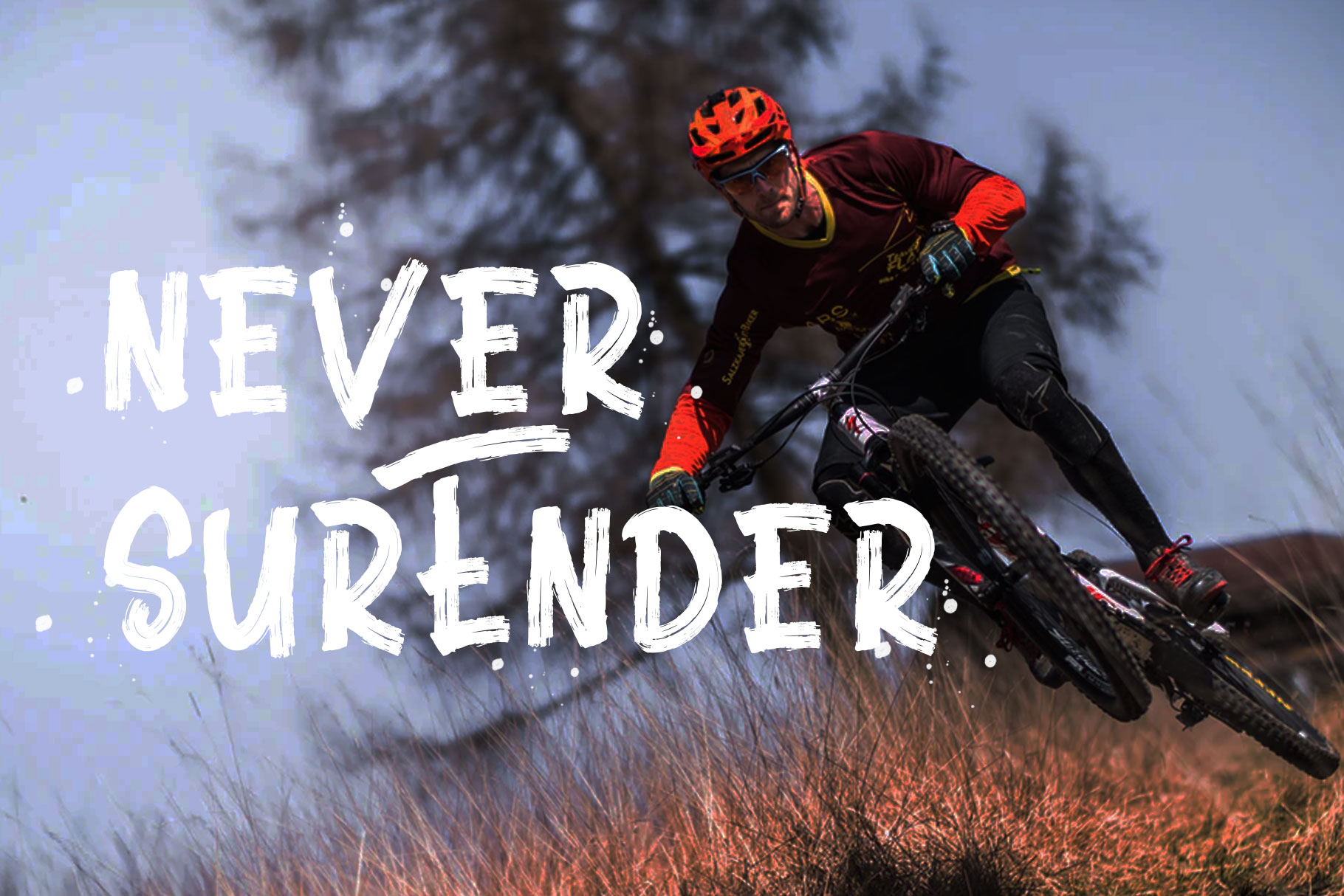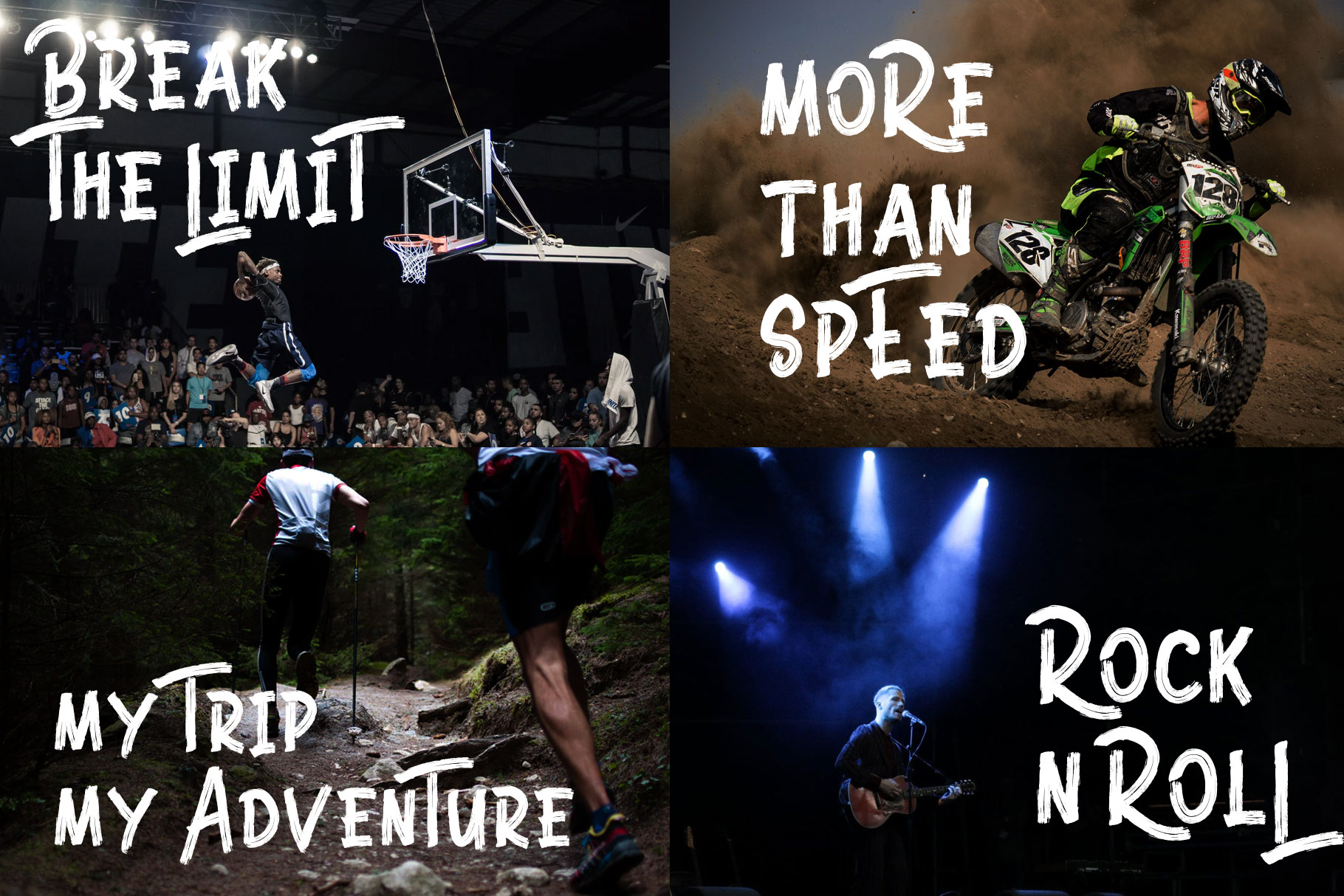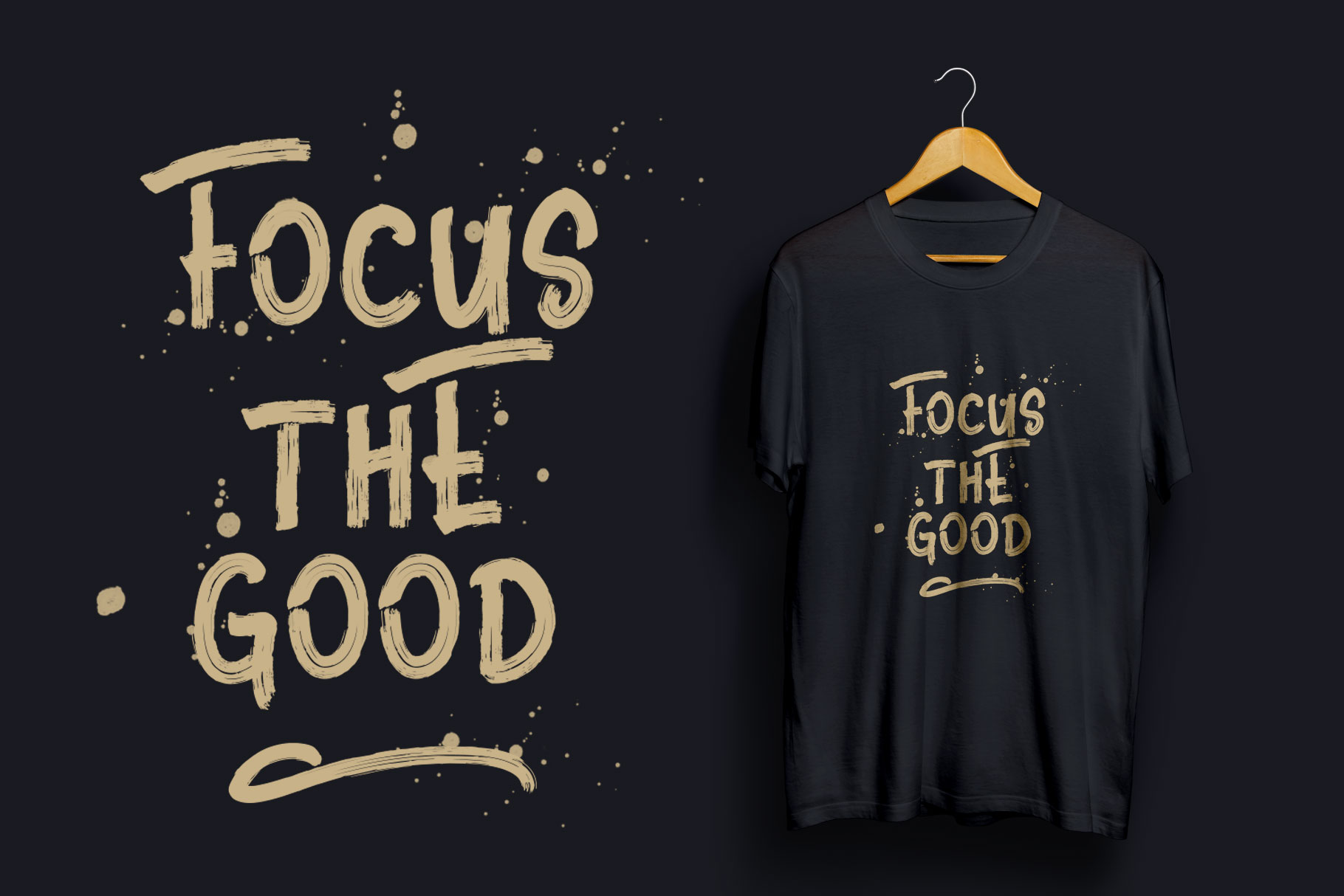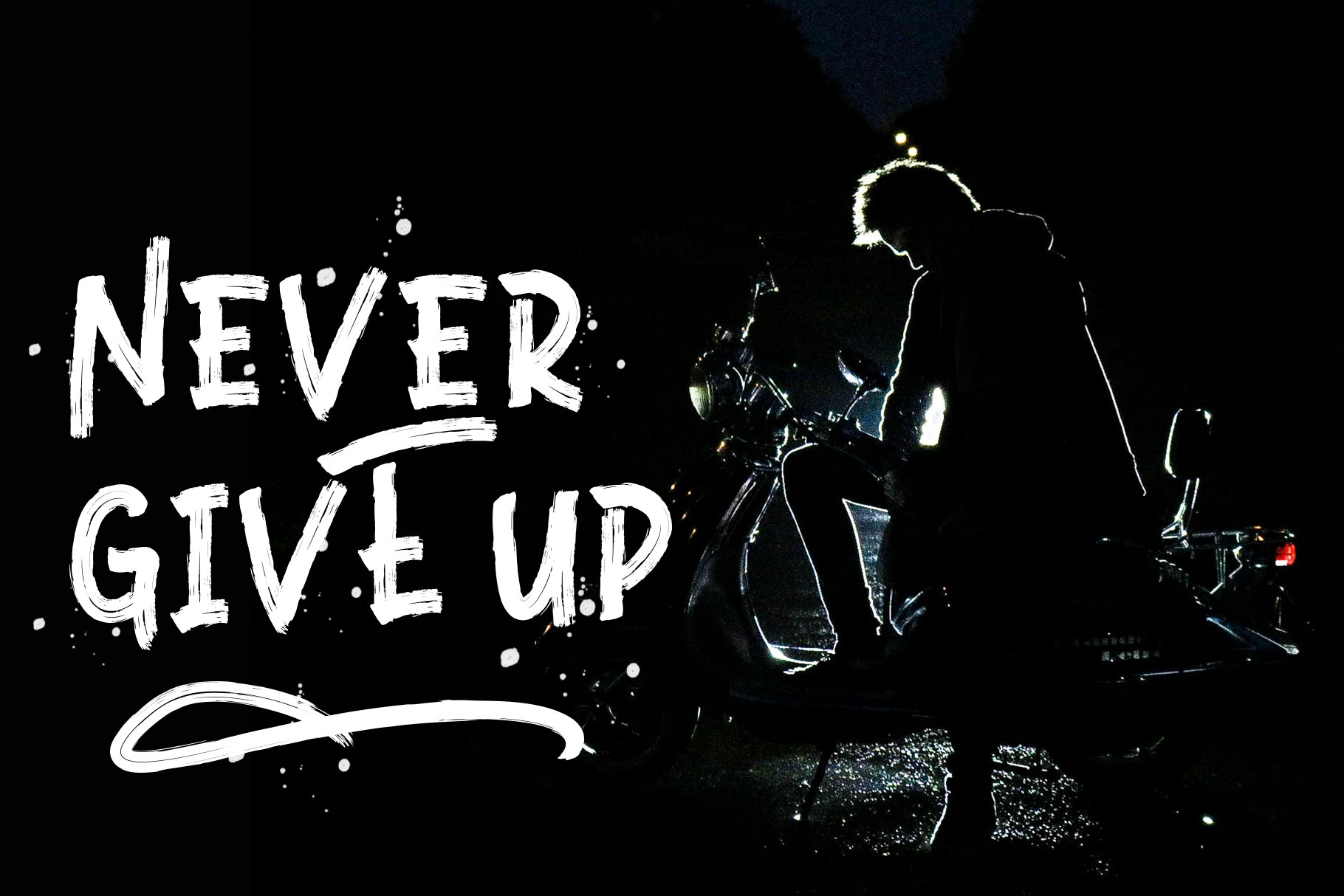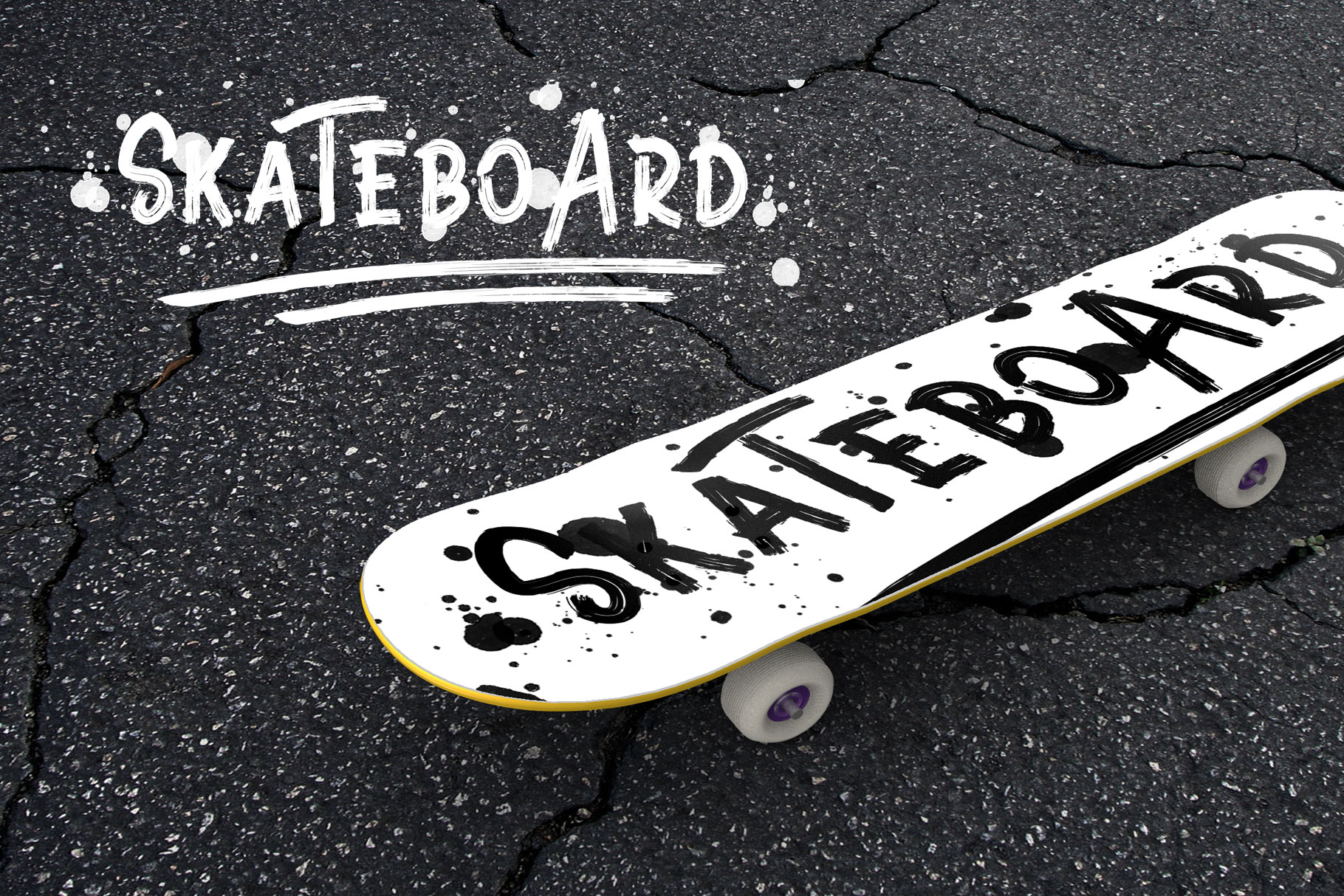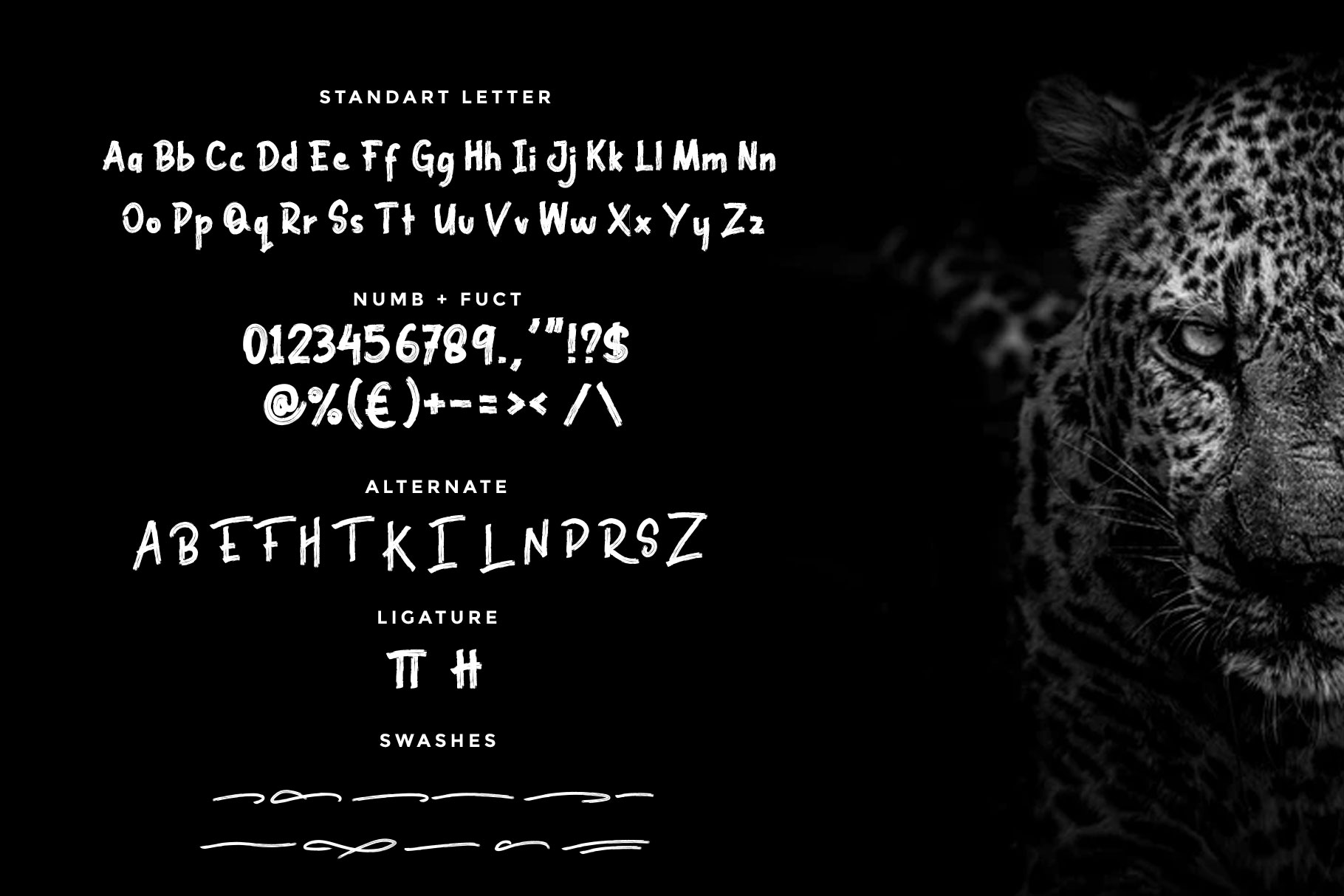
Black Brutal Brush Font
Black Brutal is an exclusive typeface with unique brush style. This font has a stunning characters set, perfectly managed with well spaced and kerning. The theme style of this font will horror, movie, games, vintage and classic brush style.
Black Brutal will be great for any projects including : branding, logo, business card, flyer, brochure etc. Almost all industries will be match for this typeface: events, music video, travel, promotions, musician, magician etc. Black Brutal is here to make your work to high level!!!
• Basic Latin A-Z and a-z
• Swashes